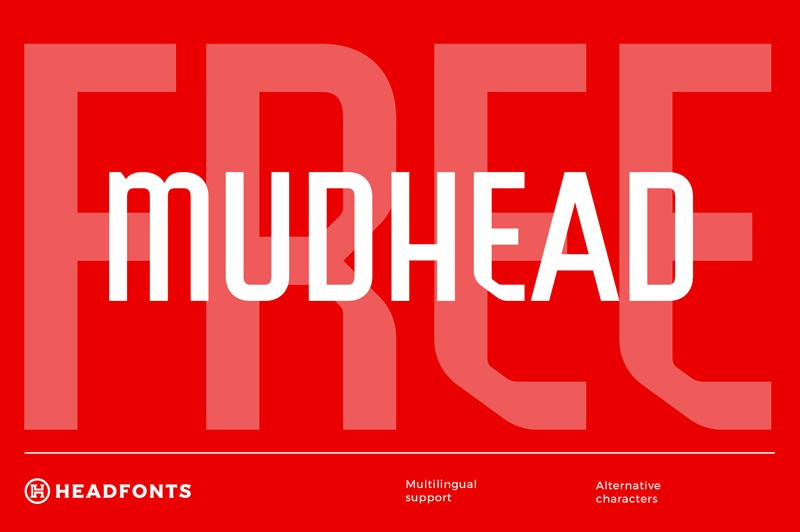
Mudhead Sans Serif Font
Mudhead Font is a Modern Sans-serif typeface. It’s a solid and shopisticated display font, created to emphasys big headline, title, single character and also good for short description paragraph. The simple and dynamic shape makes it very suitable to be used as headlines, logos, or other design needs that require a formal touch but still seem dynamic.